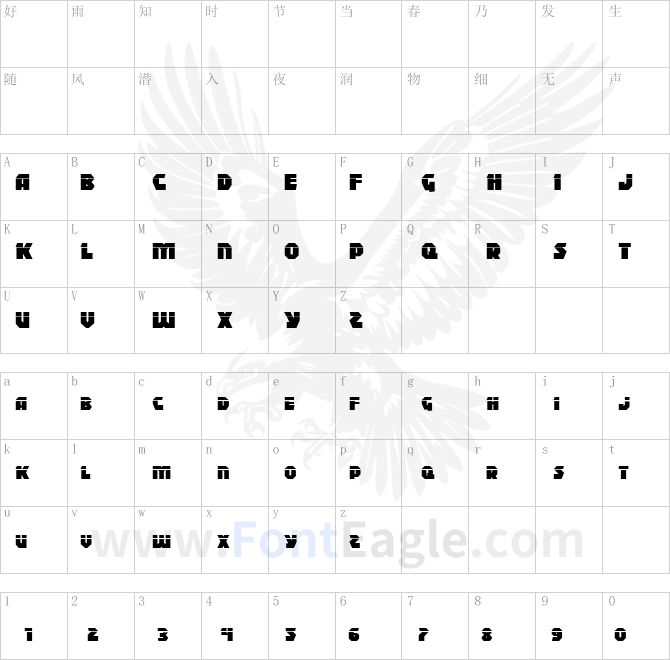
- Font name:Blitzstrike Laser
Blitzstrike-Laser-Regular is a great font, widely used in graphic design, single-page menu design, poster design and other fields, and is deeply loved by designers.Blitzstrike-Laser-Regular download.